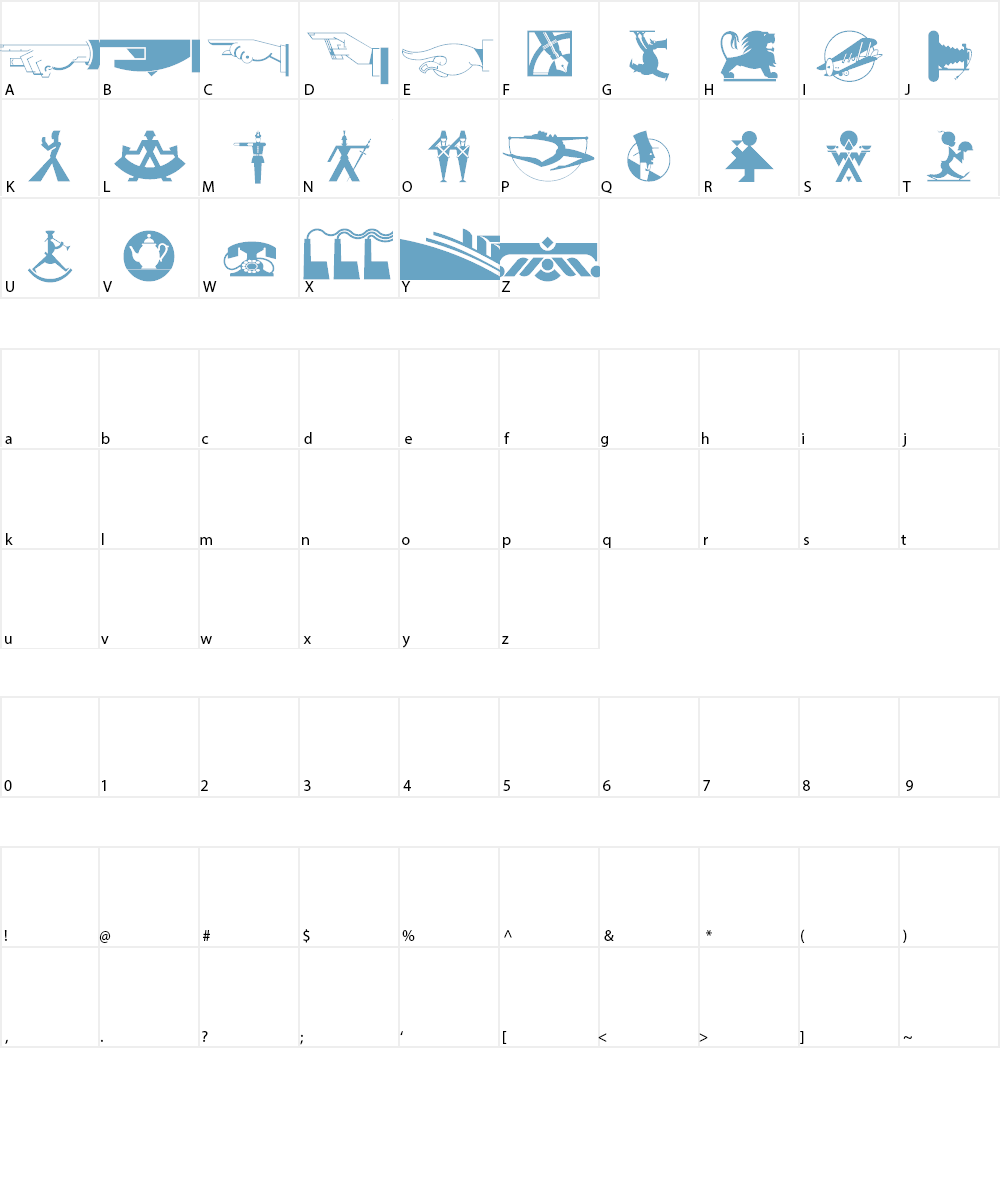
An assortment of graphic elements — including several Deco “Bishop’s Fingers” — that will liven up any page. Gleaned from authentic historic sources.